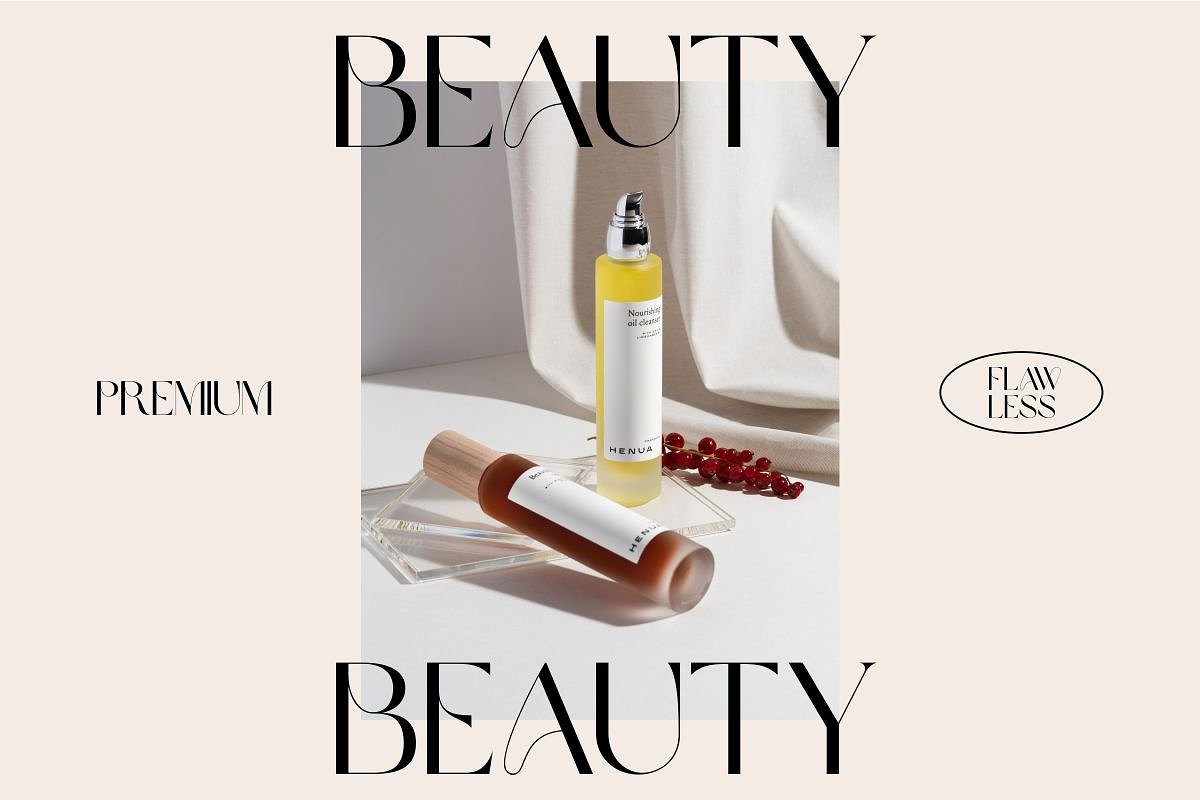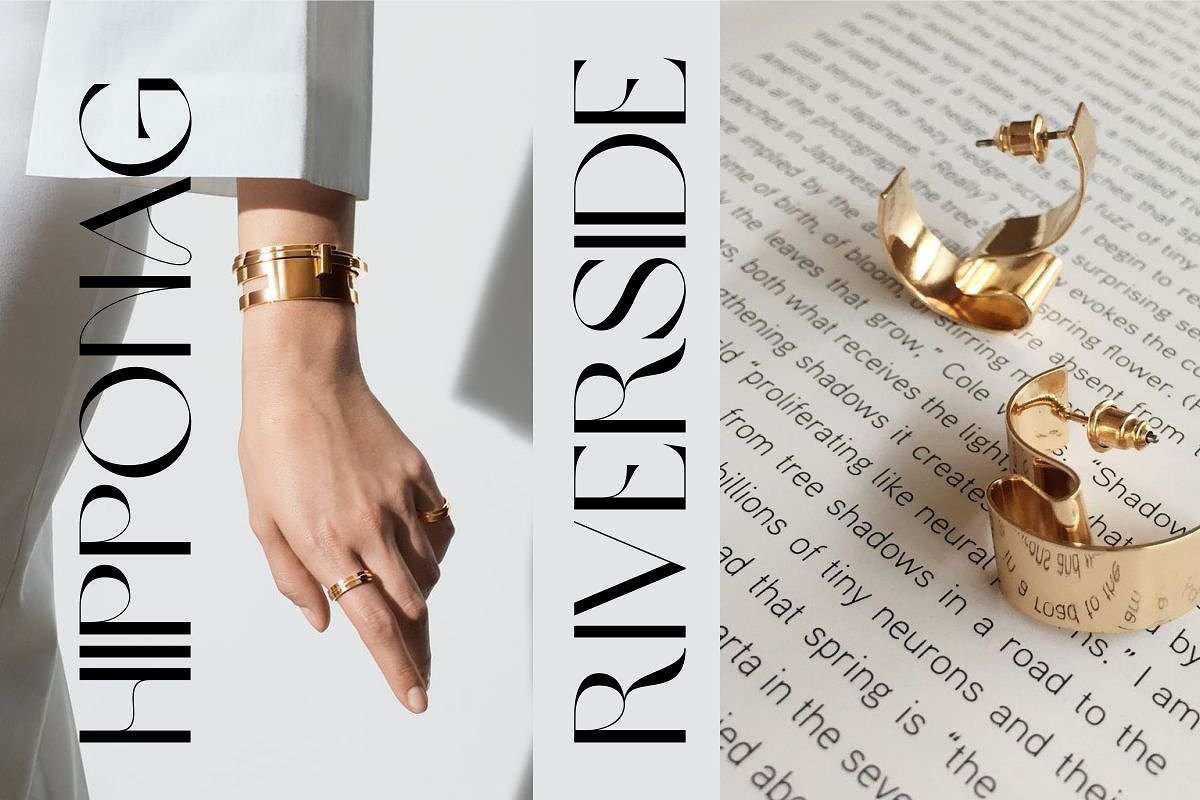
About the Brown Sugar Modern Stylish Font
Brown Sugar fonts includes uppercase letters, numerals, a large range of punctuation, Serif font with modern stylish style, Created for poster, web design, branding, illustrations, badges and some other works, Brown Sugar OTFBrown Sugar TTFPlease contact us if you have any question, we are happy to help you!Thank you!